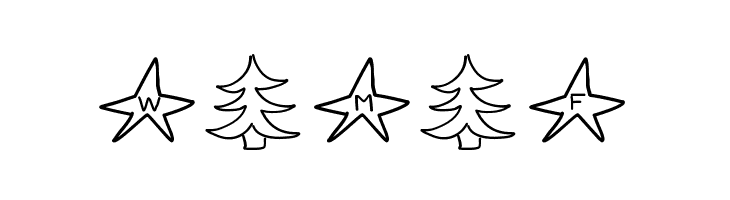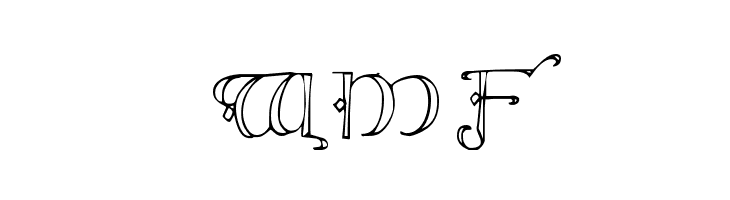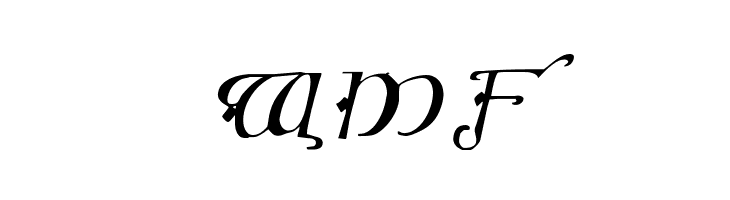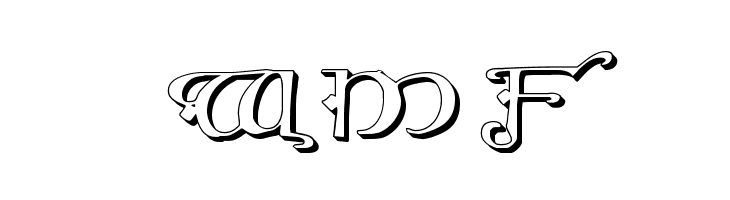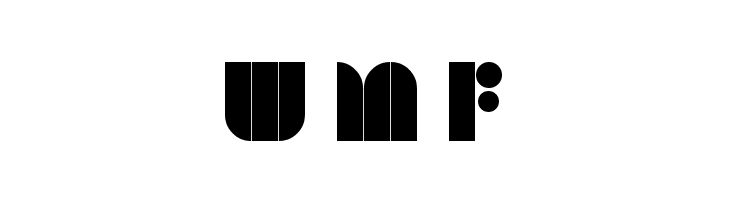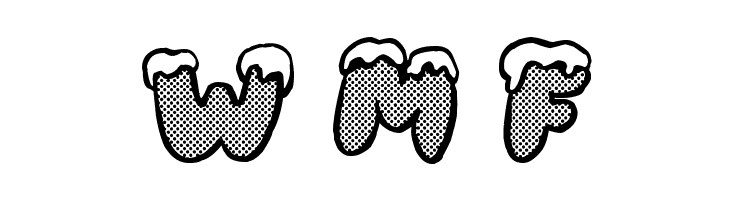
( Gaelleing )
A whimsical, festive font with characters in star shapes and numbers as Christmas trees.
A whimsical, cursive font with decorative elements and a festive flair.
A whimsical, decorative font with intricate embellishments and a festive feel.
An elegant, festive, calligraphic font with decorative swirls and a condensed italic style.
A bold, 3D decorative font with a festive, playful style.
An ornate and decorative font with festive swirls and flourishes.
An elegant, whimsical cursive font with festive decorative elements and high contrast.
A whimsical, decorative, and condensed italic font with festive flourishes.
A bold, decorative font with a distressed, festive style.
A festive dingbat font with charming Christmas-themed illustrations.
A festive, star-studded script font perfect for holiday-themed projects.
A festive, decorative font with cursive uppercase and bold script lowercase, perfect for holiday themes.
A festive script font with snowflake accents and holiday-themed symbols.
A whimsical, star-studded decorative font perfect for festive occasions.
A festive, ornament-themed decorative font perfect for holiday projects.
A bold, decorative font with playful, dripping elements perfect for festive designs.
A bold, decorative font with geometric influences and a festive flair.
A bold, decorative font with a three-dimensional effect and festive style.
A decorative font with Christmas-themed icons for festive projects.
A bold, serif font with characters on banner-like backgrounds, perfect for festive occasions.
A playful, whimsical font with hanging letters and star accents, perfect for festive designs.
A festive, decorative font with holiday-themed embellishments.
A festive set of bold Christmas-themed icons for decorative use.
A festive, decorative font with holiday-themed illustrations and a playful, hand-drawn style.
A bold, festive font with snow-capped, three-dimensional letters perfect for holiday themes.
A festive, snow-capped decorative font with bold, blackletter-inspired characters.
A bold, decorative font with snow-capped letters and a festive winter theme.
A bold, geometric font with circular and semi-circular shapes, perfect for striking headlines.
A festive, snow-capped font with a bold, cartoonish style.
A playful collection of festive Christmas-themed doodles in black and white.
Whimsical Christmas-themed dingbat illustrations.
A whimsical, decorative font featuring leprechaun hats on each character, perfect for festive projects.
A decorative font with characters encased in festive wreaths, perfect for holiday themes.
A festive decorative font featuring characters within holly-adorned bells.